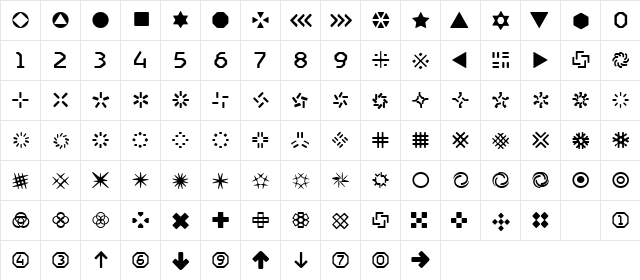
AlertDingbats Regular
Design Context for AlertDingbats Typeface
AlertDingbats takes a measured approach to typography — its balanced proportions and neutral character make it a reliable workhorse for both digital and print work.
Pro Tip: Pair AlertDingbats with a font of contrasting weight or personality to build a more expressive typographic hierarchy.